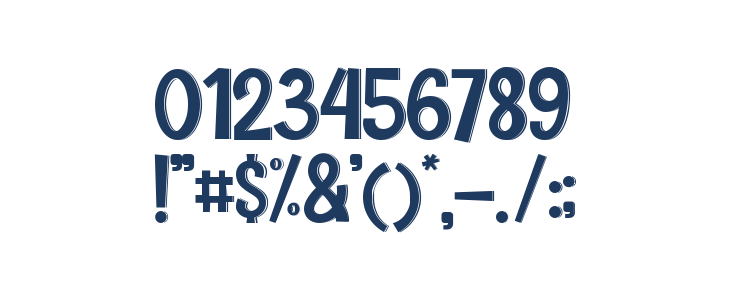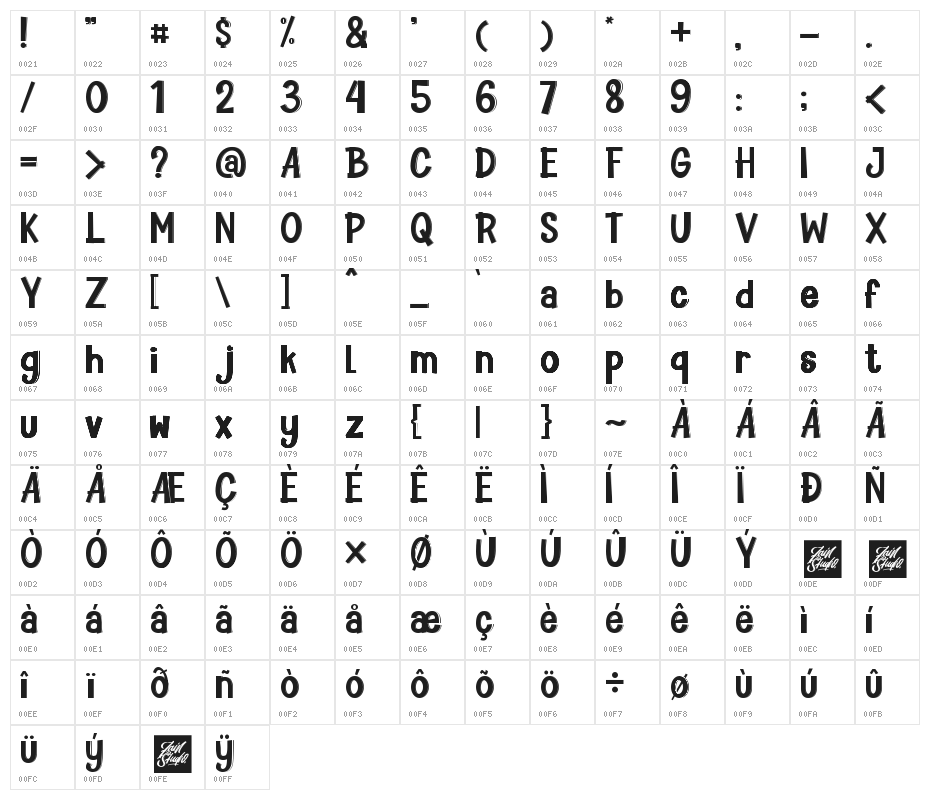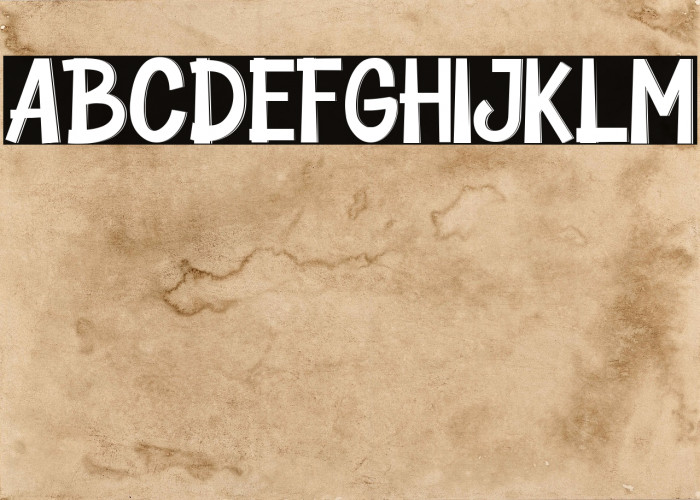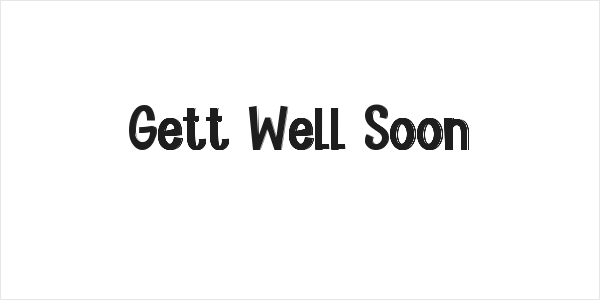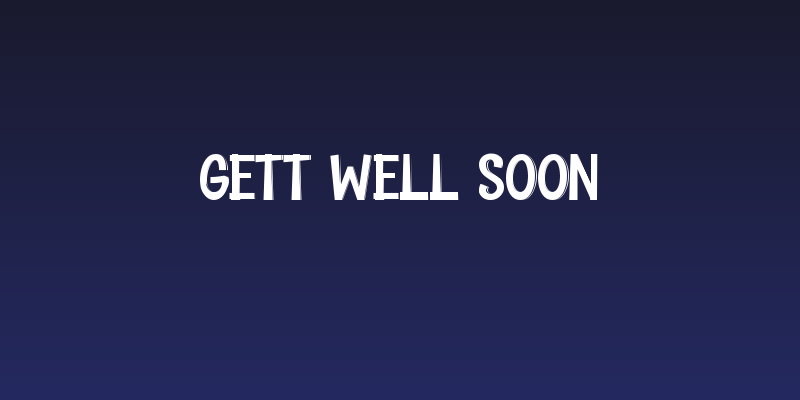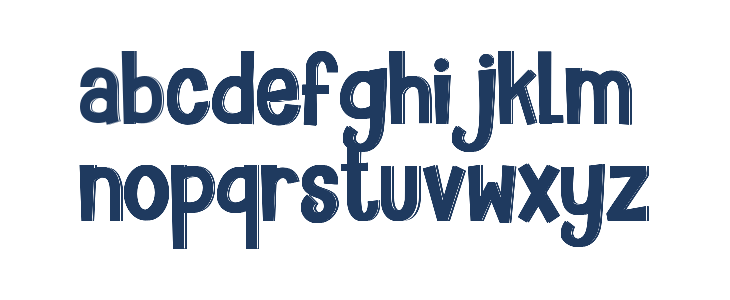
Gett Well Soon Font
Gett Well Soon Description
This font features a playful and bold style with a hand-drawn appearance. The uppercase letters are tall and slightly narrow, with varying stroke widths that add a dynamic feel. Lowercase letters maintain the same playful aesthetic, with rounded edges and a slightly irregular baseline, enhancing the casual and friendly vibe. The numerals are bold and consistent with the overall style, making them easily legible. Special characters are creatively designed, adding to the font's whimsical nature. This font is ideal for projects that require a fun and informal touch.
Proposed ProjectsIdeal for greeting cards, children's books, playful branding, and casual invitations.